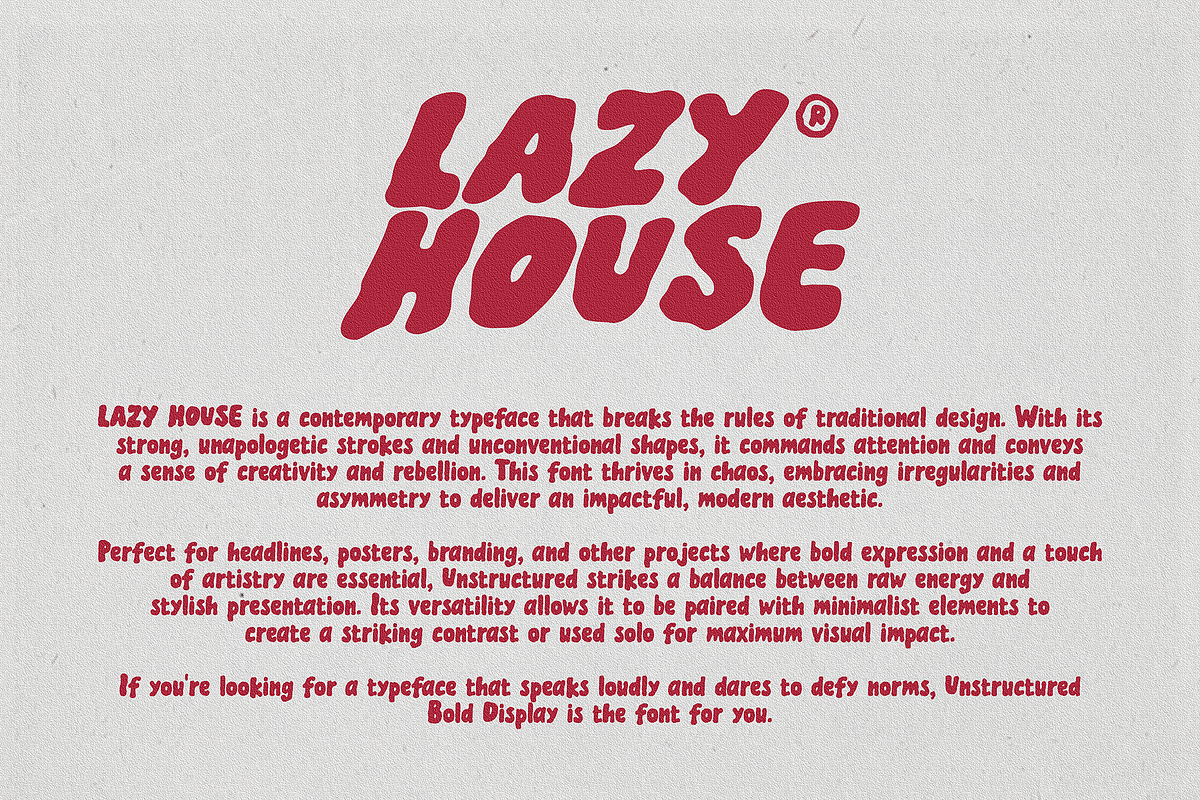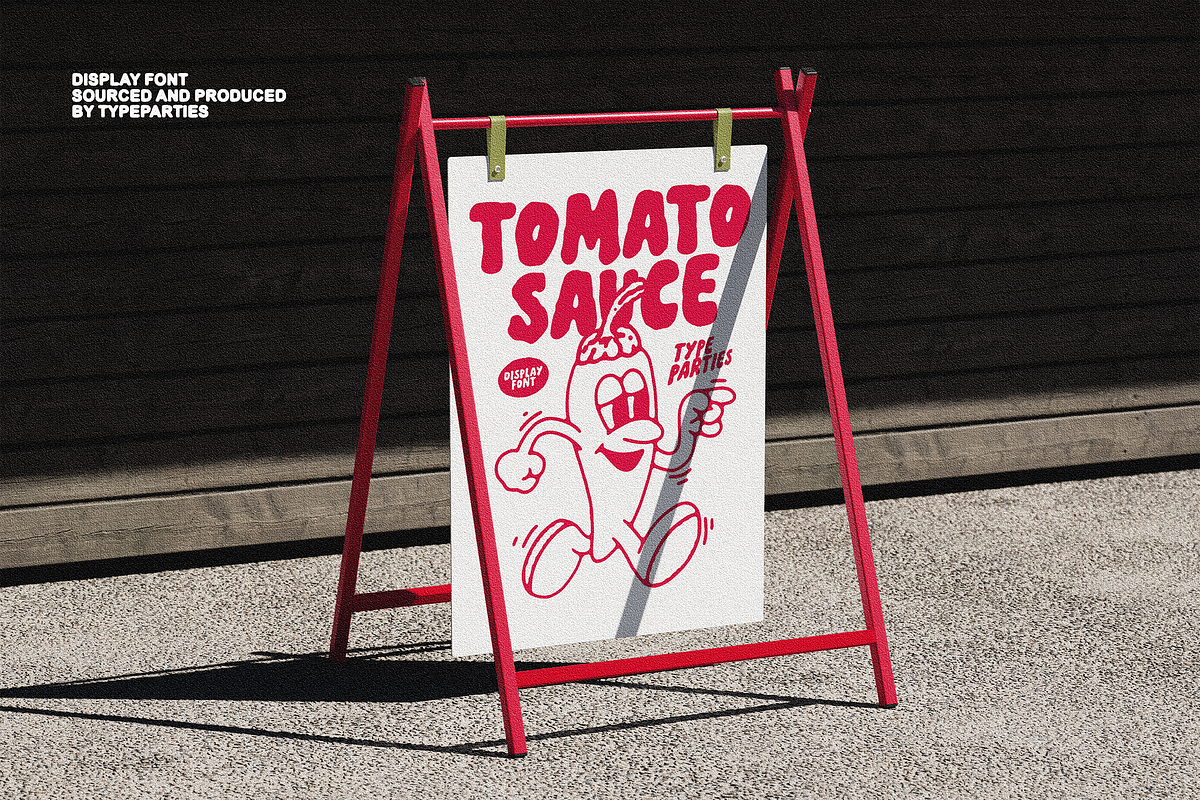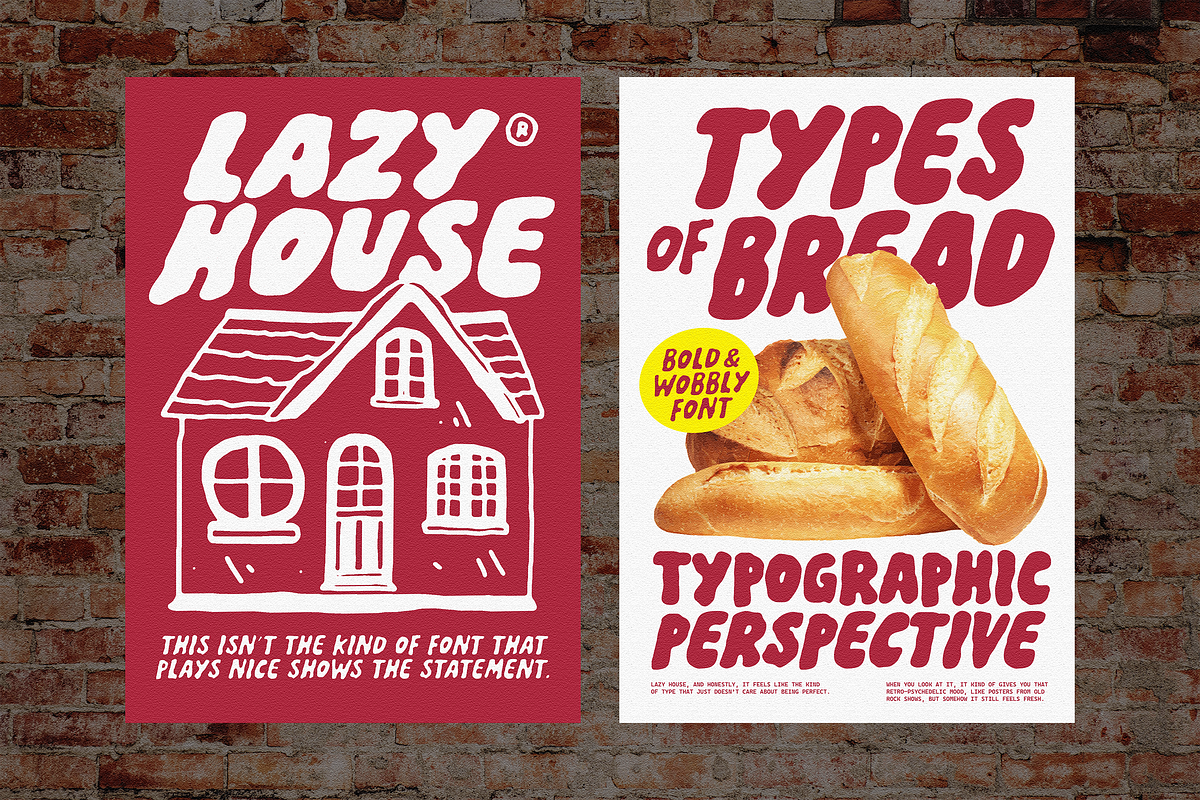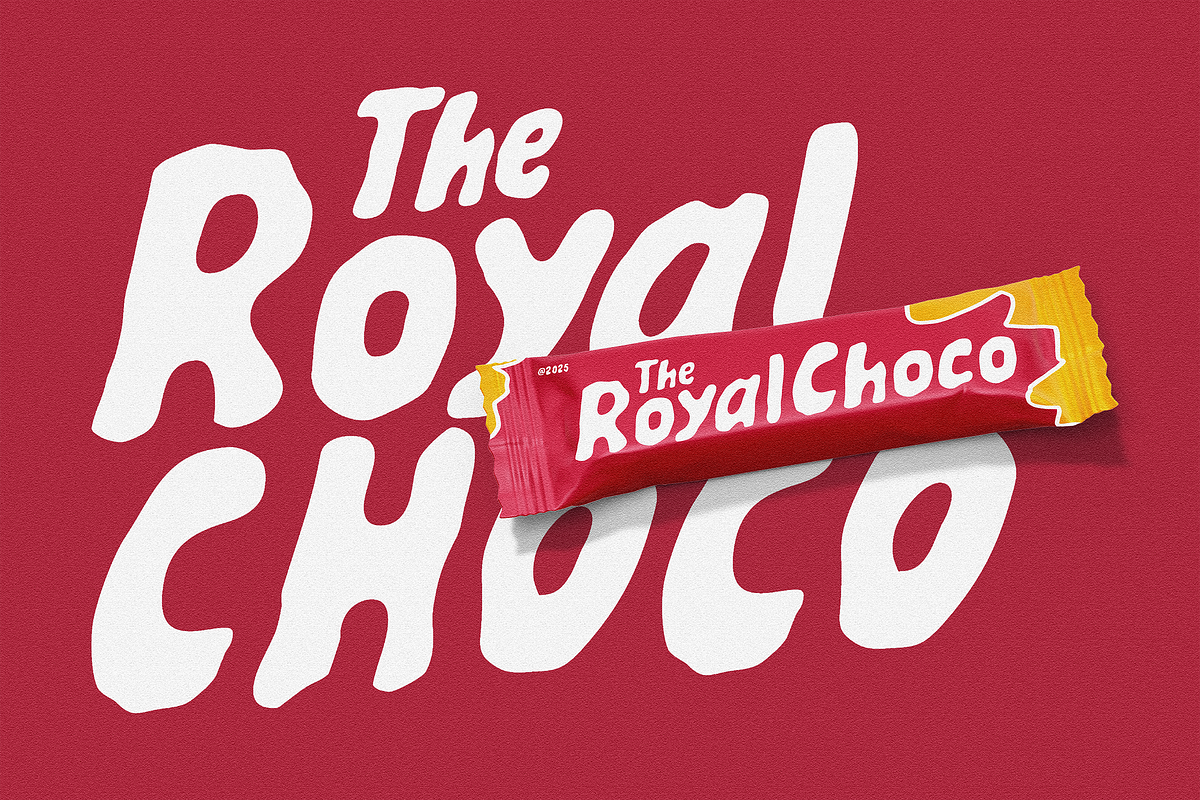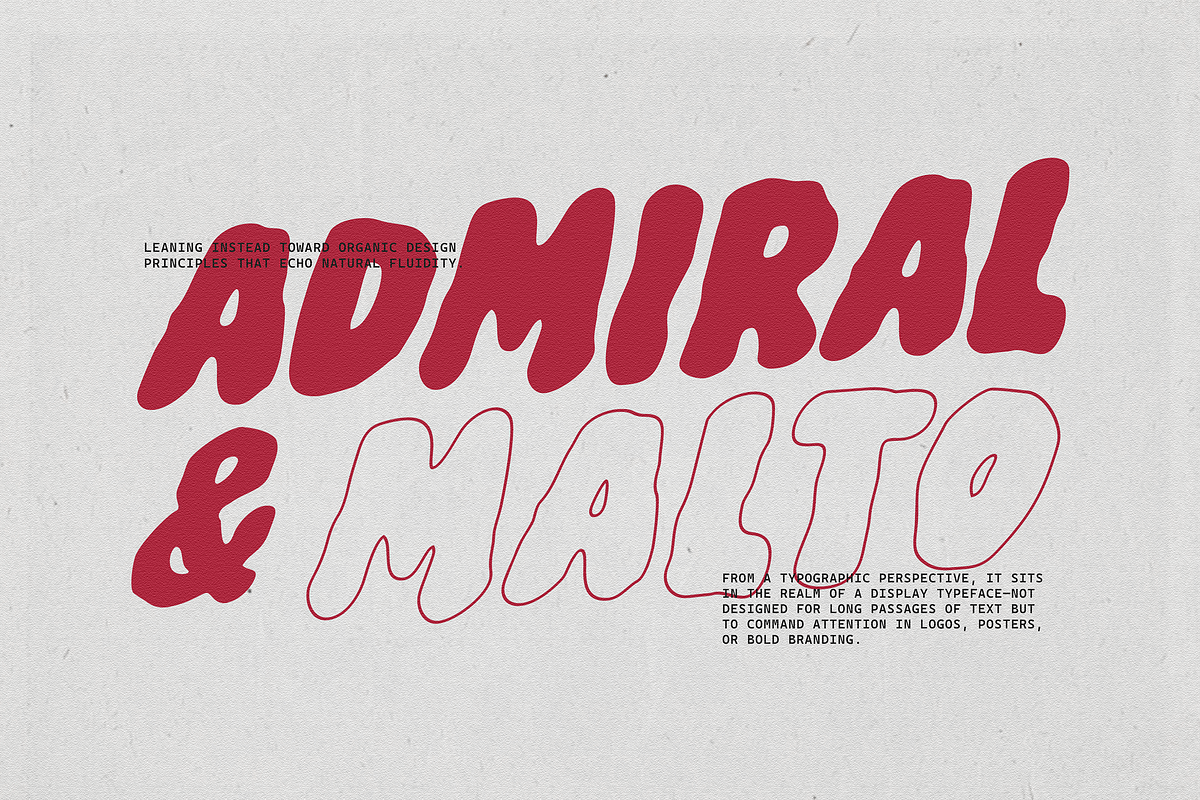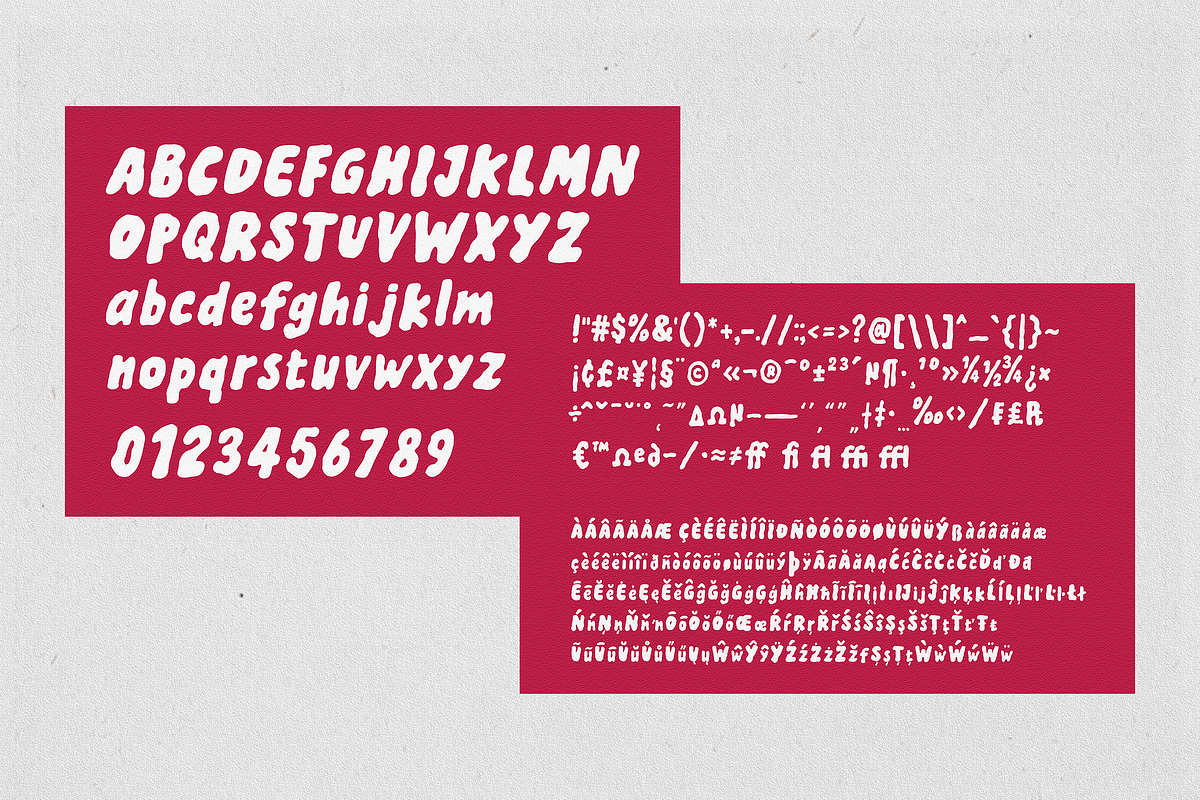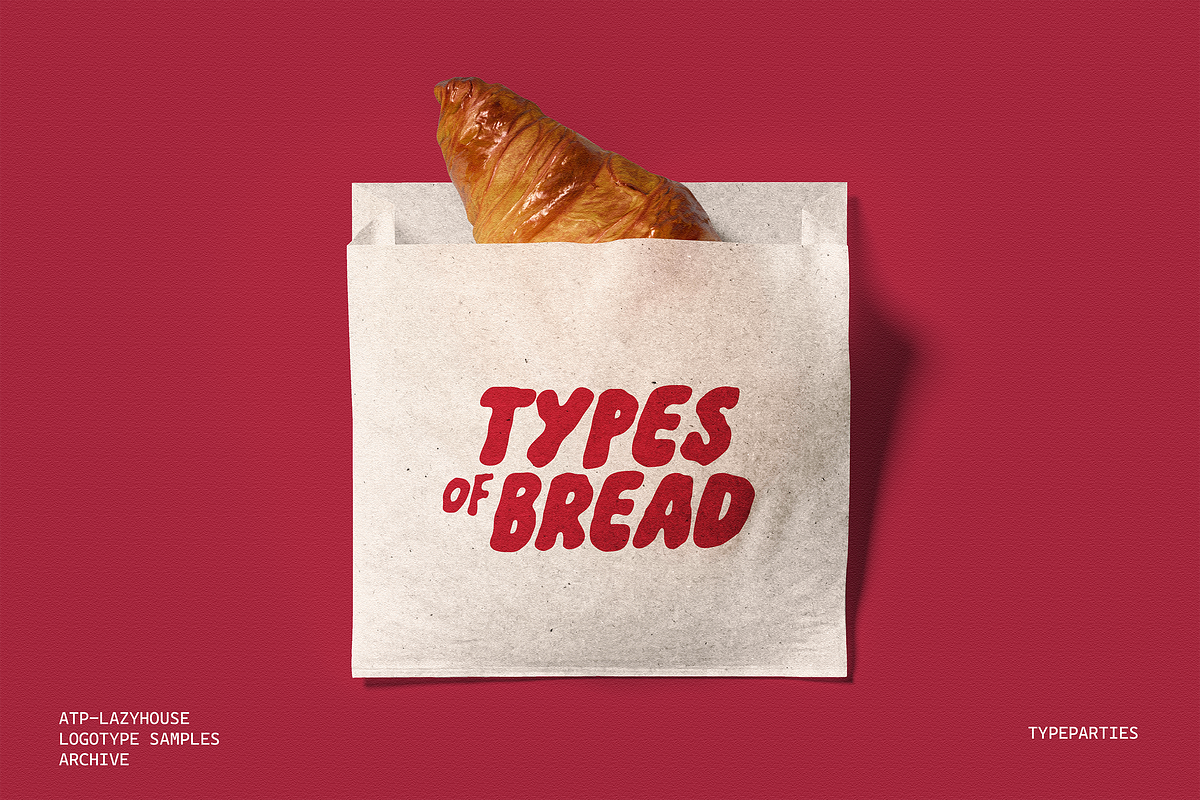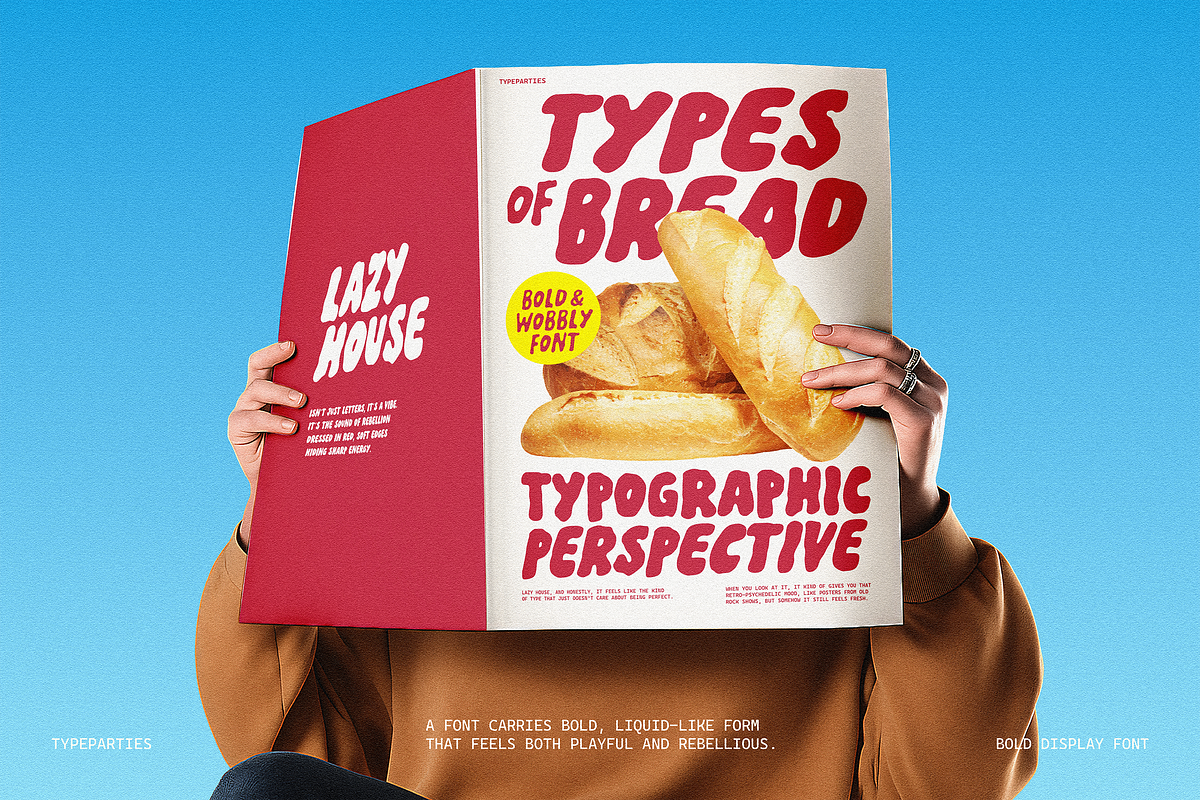
LazyHouse - Bold Display Font
LAZY HOUSE carries a bold, liquid-like form that feels both playful and rebellious. Its swollen, irregular contours give the impression of letters melting or dripping, creating a strong sense of motion and softness at the same time.
From a typographic perspective, it sits in the realm of a display typeface—not designed for long passages of text but to command attention in logos, posters, or bold branding. Its exaggerated, blob-like shapes break away from geometric rigidity, leaning instead toward organic design principles that echo natural fluidity.